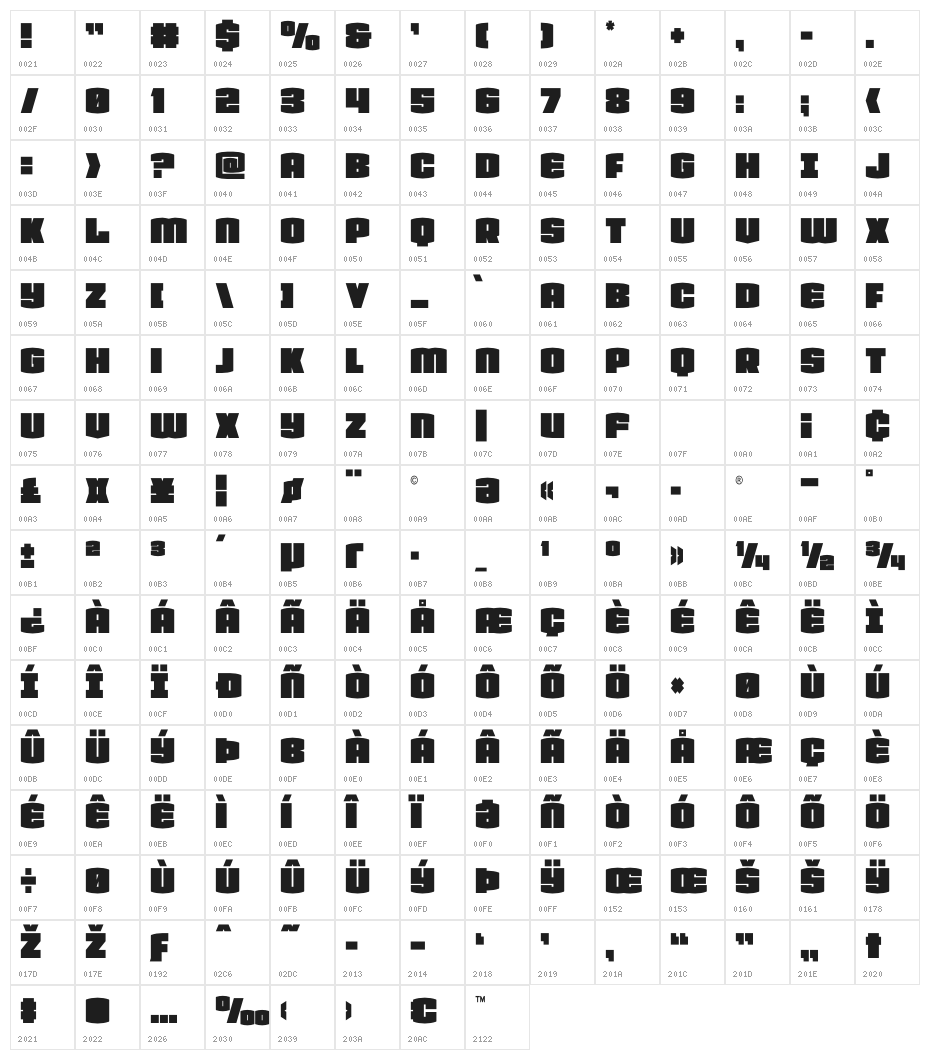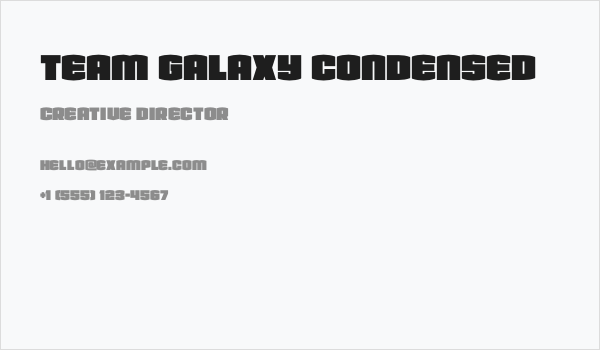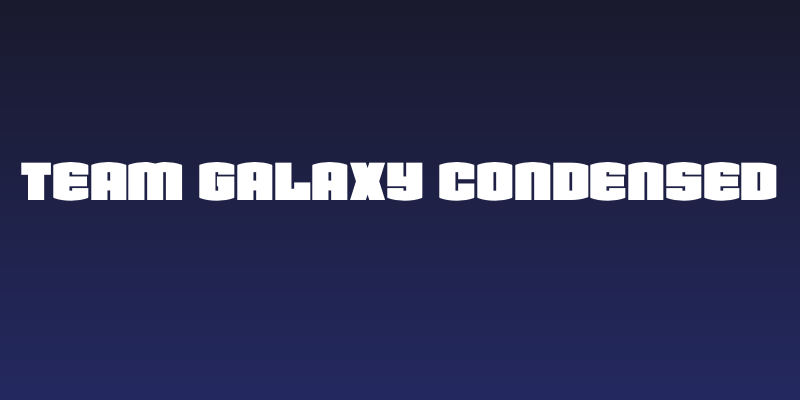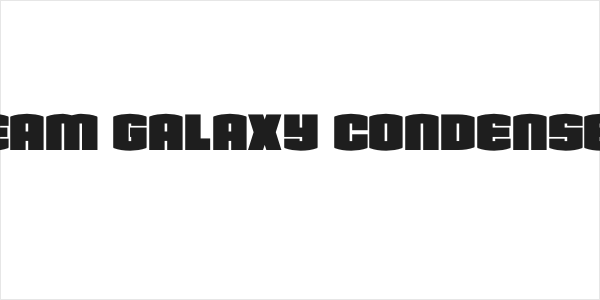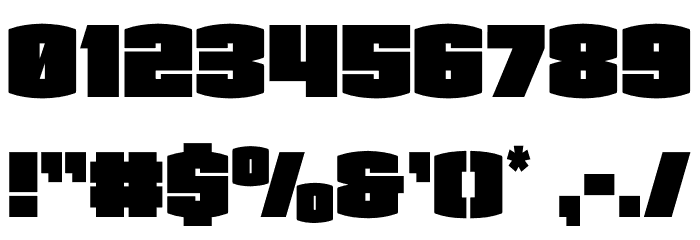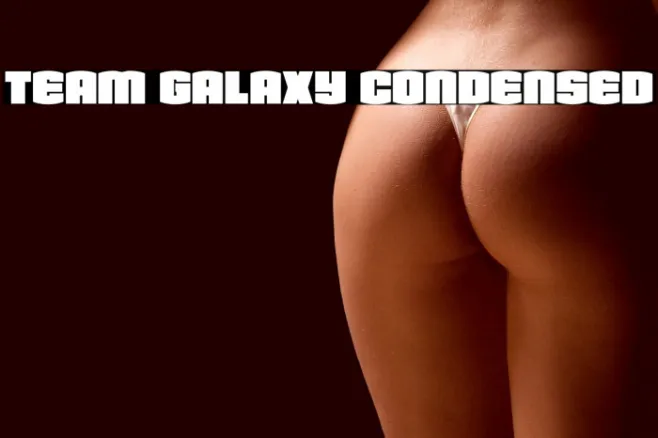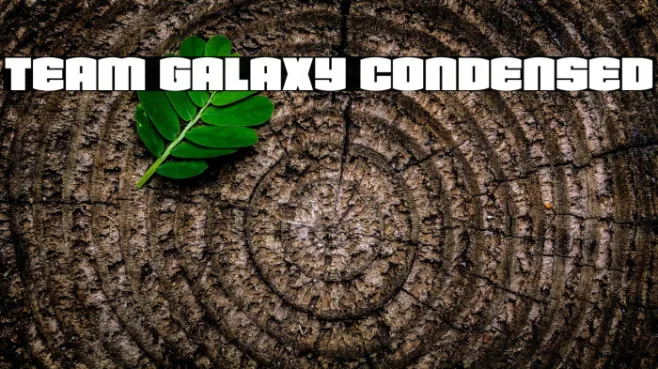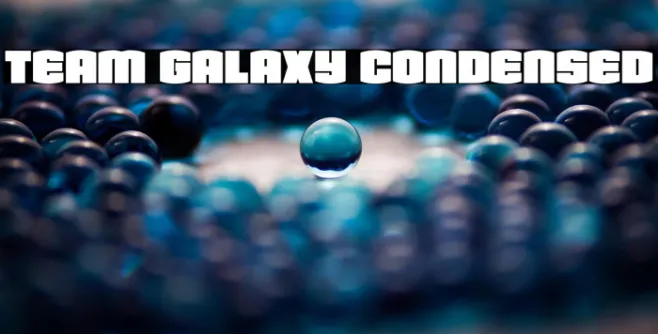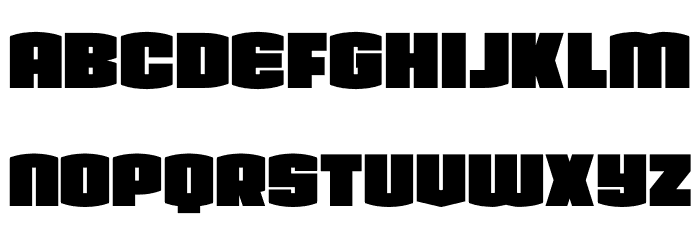
Team Galaxy Condensed Font
Team Galaxy Condensed Description
This font features a bold and impactful design with a condensed width, making it ideal for attention-grabbing headlines and titles. The characters are uniformly thick, with minimal contrast in stroke width, giving it a solid and robust appearance. The uppercase and lowercase letters maintain a consistent style, with sharp edges and a geometric feel. The numerals and special characters are equally bold, ensuring they stand out in any design. This font is perfect for projects that require a strong visual presence.